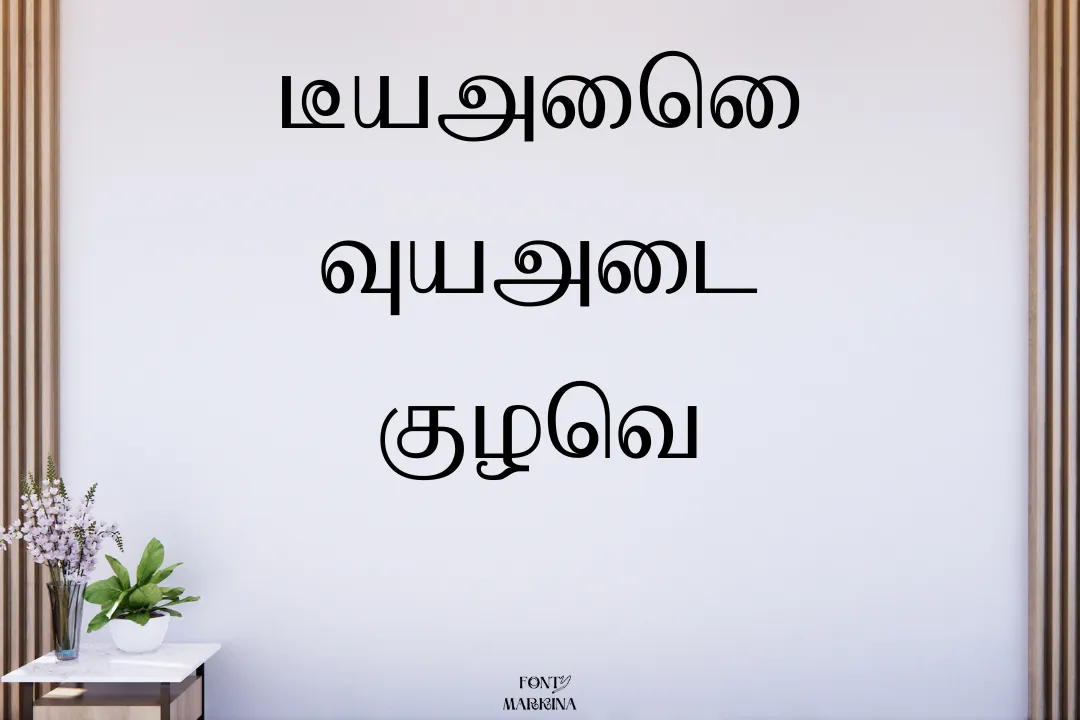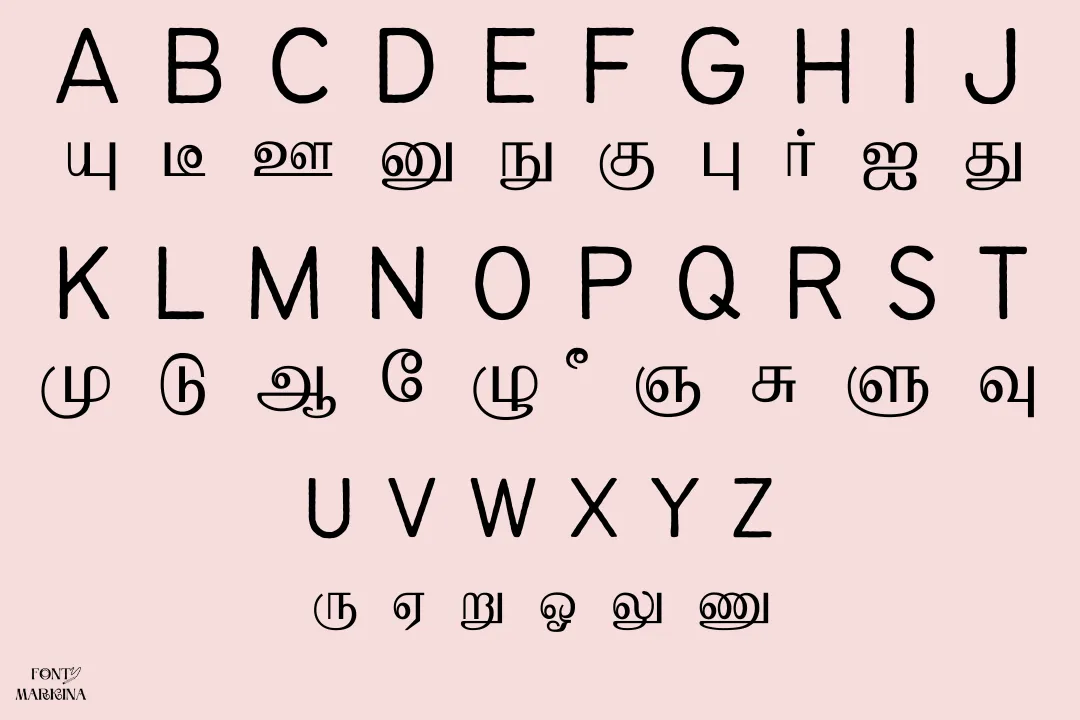
Bamini Tamil Font falls in the category of the display family. Haran Graph is the main developer of this font family. This texture was designed for use in Tamil text designs. One main feature of this texture is that it contains more than 200 special characters styles.
This family supports a lot of famous international languages. So, because of this reason this family is famous all across the globe. This typeface is similar to Apple Chancery Font both have the same styles.
Uses of Bamini Tamil Font
This stunning typeface is used for a vast variety of projects such as poster designs for billboards, and street boards.
In political banner designs, you can use this tremendous texture. This remarkable typeface is also used for comic books, and horror book covers.
All bureaucrats use this awesome family for special signatures. It is also effective for social media posts. It is commonly used for thumbnails and photo editing.
Bamini Tamil Font View
| Name | Bamini Tamil Font |
| Designer | Haran Graph |
| Style | Fancy |
What is the type of Bamini Tamil texture?
This texture is from the fancy font family. It contains more than 200 special characters styles.